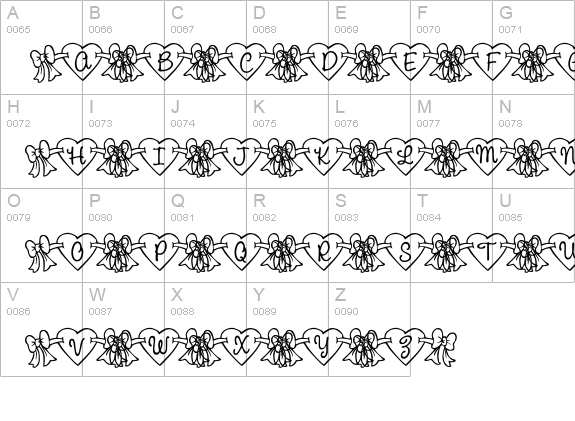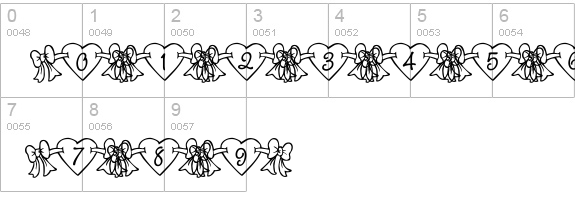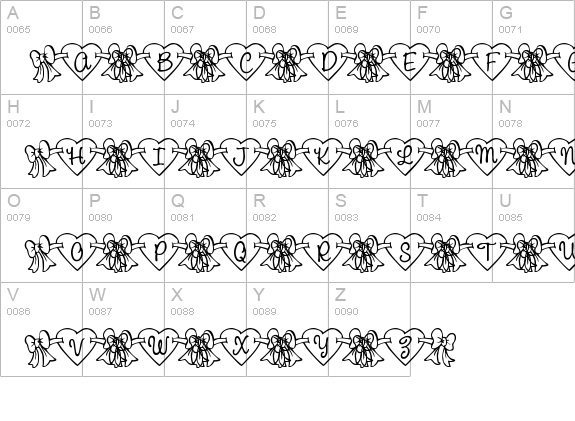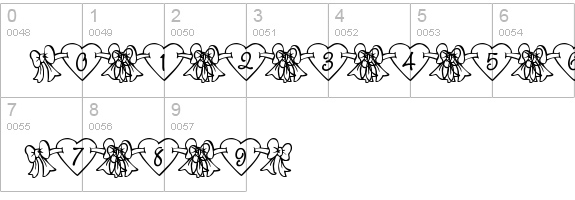
RMBowhrt Font Details
Introducing RMBowhrt, a captivating and versatile font that is sure to make a lasting impression. With its elegant and intricate design, RMBowhrt exudes a sense of sophistication and creativity, perfect for adding a touch of refinement to any project. This font is not only visually stunning, but it is also incredibly user-friendly. Its smooth and flowing letterforms make it easy to read, ensuring that your message is effortlessly conveyed to your audience. Whether you're designing a logo, creating a poster, or crafting a social media post, RMBowhrt will bring your text to life in a way that is both eye-catching and professional. But what sets RMBowhrt apart from other fonts is not just its remarkable aesthetics, but also its accessibility. It is available for free download exclusively at FontsMarket.com, allowing designers, creatives, and enthusiasts alike to effortlessly incorporate this font into their projects without breaking the bank. So why wait? Discover the endless possibilities that RMBowhrt has to offer and elevate your design game to new heights. With its free availability and undeniable charm, this font is a must-have addition to your font library. Embrace the elegance of RMBowhrt and let your creativity soar.